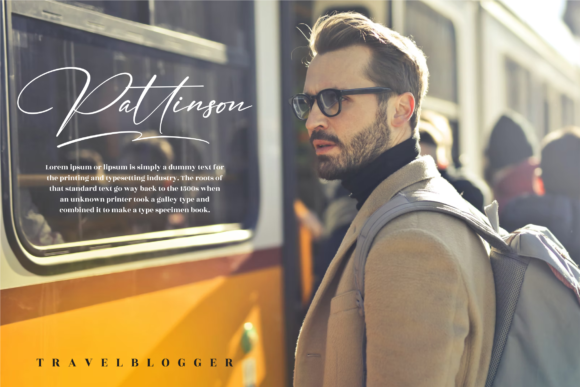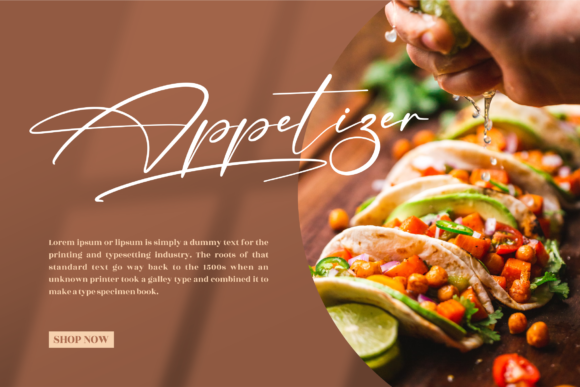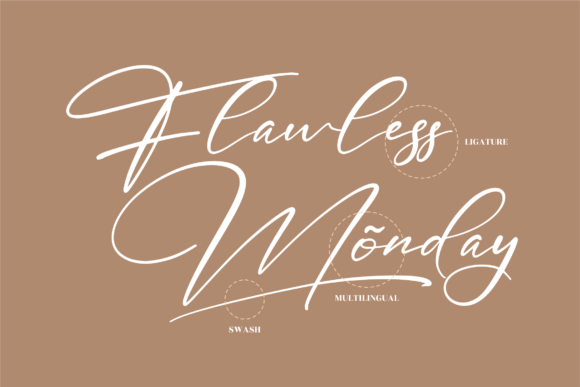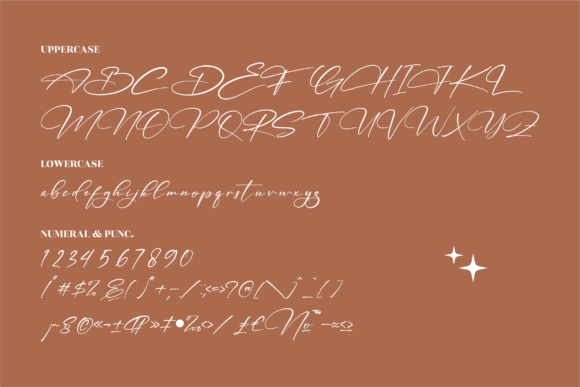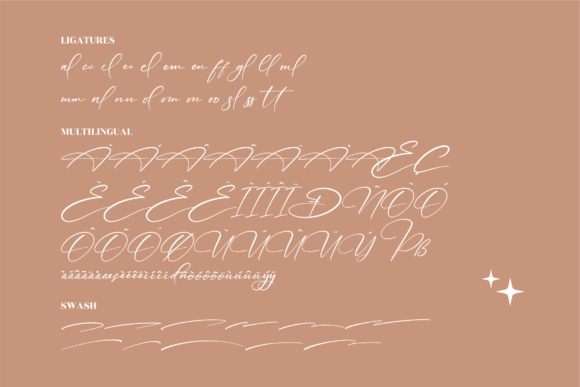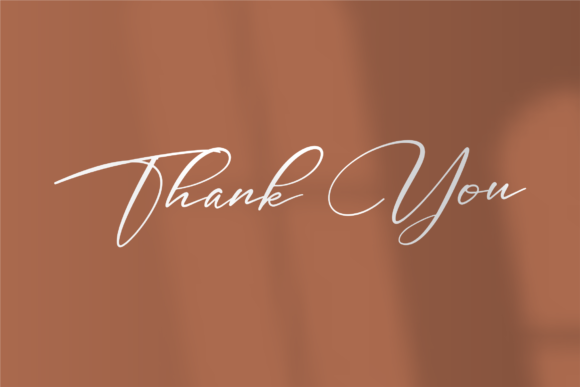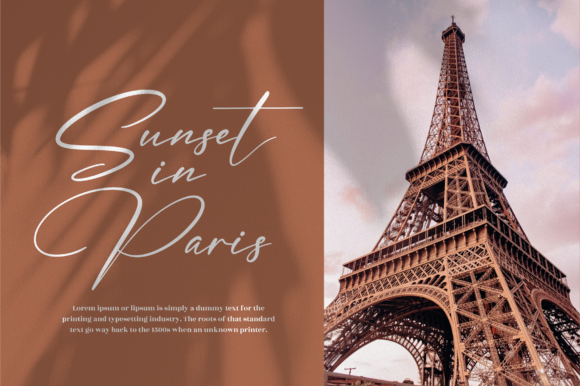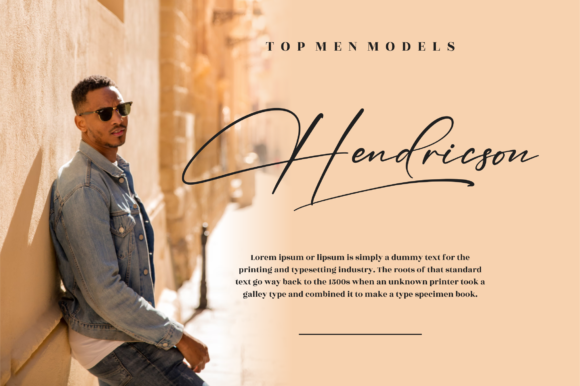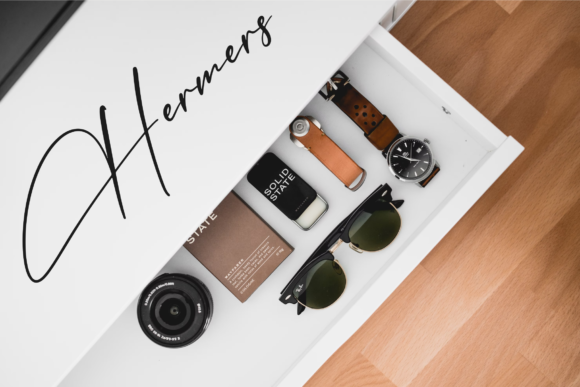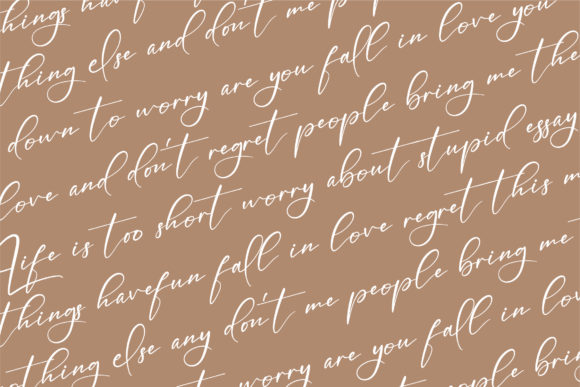
Handsmith Font
About Handsmith Font
Handsmith is a sweet and cursive handwritten font. This gentle font will look gorgeous on a variety of design ideas. Handsmith is PUA encoded which means you can access all glyphs and swashes with ease!